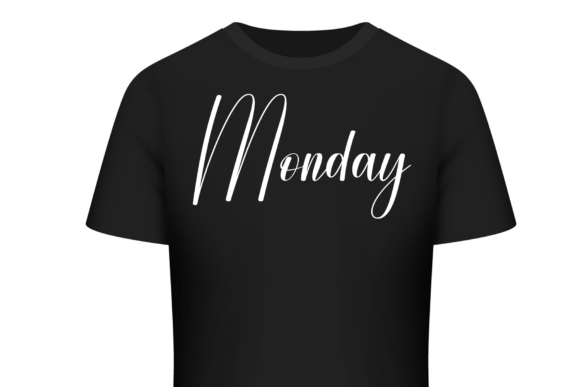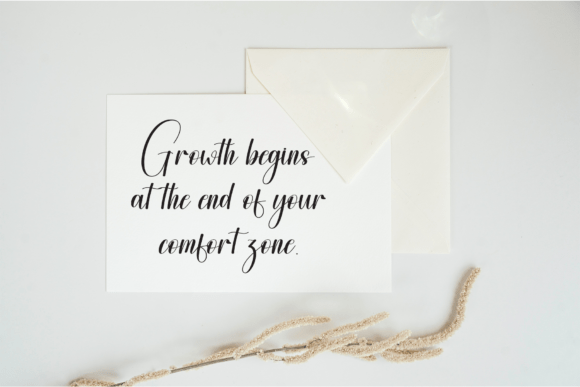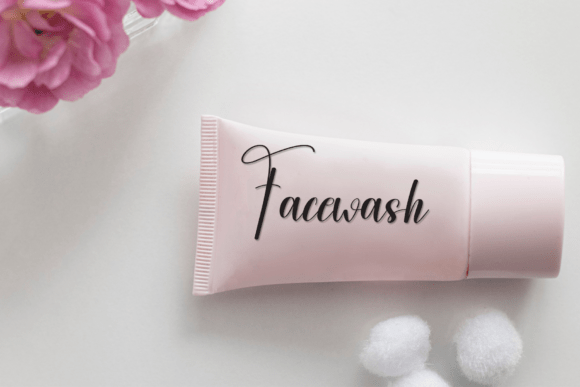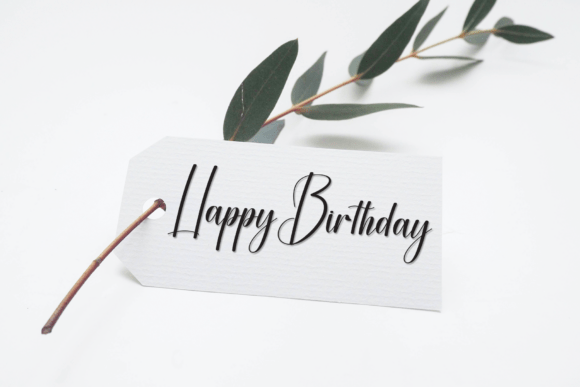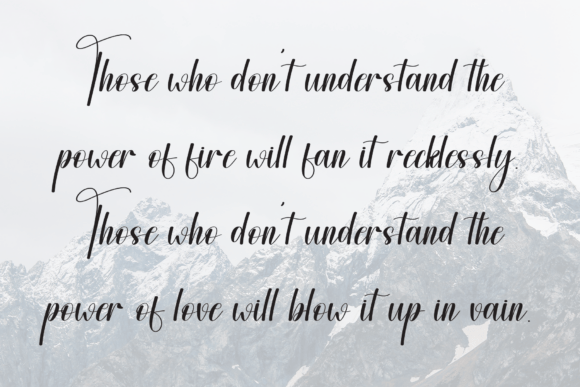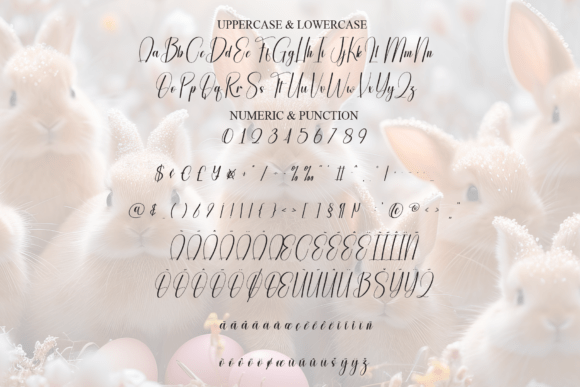
Introducing Bunny Font: The Sweetest Addition to Your Design Toolkit
Have you ever been in the middle of a design project, and suddenly, you just can’t seem to find the right font? I recall a particularly frustrating experience while working on a whimsical wedding invitation project. My client wanted something sweet, playful, and utterly charming. I scoured the internet, tried out countless fonts, but nothing seemed quite right. That was until I stumbled upon Bunny Font – a charmingly delightful handwritten display font that instantly captured the essence of what I was trying to create.
The First Impression: A Perfect Blend of Whimsy and Warmth
Bunny Font is more than just a typeface; it’s an experience. Exuding an aura of friendliness, this typography is perfect for crafting whimsical wedding invitations, sentimental cards, or infusing a dash of fun into any design that could use a playful touch. The moment I laid eyes on it, I knew I had found the perfect fit for my project. Its sweet and inviting design makes it an excellent choice for designers, crafters, and creative hobbyists looking to add a personal touch to their work.
- ✨ Unique and charming handwritten style that’s perfect for creative projects
- ✅ Extensive character set, including support for multiple languages
- 💕 Beautifully designed to evoke a sense of warmth and friendliness
- 🎉 Excellent for use in digital and print media, from social media graphics to wedding invitations
While Bunny Font is incredibly versatile, there are a few things to keep in mind. ⚠️ Some of the more intricate details can get a bit lost at smaller font sizes, so it’s best used for headlines or larger text. Additionally, while the font comes with a range of glyphs and stylistic alternates, it may not be the best choice for body text due to its highly decorative nature.
Exploring Alternatives: Similar Fonts for Different Moods
If you’re looking for something similar to Bunny Font or want to explore other options, here are a few alternatives:
- Lobster – A elegant, yet approachable script font perfect for formal events or sophisticated designs.
- Pacifico – Offers a more relaxed, beachy vibe, ideal for projects that require a laid-back feel.
- Great Vibes – A fun, adventurous script that’s great for designs that need a bit of energy and playfulness.
- Alex Brush – A beautiful, handwritten font with a more artistic and expressive feel, suitable for creative and inspirational projects.
The Story Behind Bunny Font: A Glimpse into Its Creation
While the actual origins of Bunny Font are shrouded in mystery, it’s easy to imagine that its creation was inspired by a love of whimsical designs and a desire to bring a bit of joy into the world of typography. Perhaps its designer, fueled by a passion for handwriting and a keen eye for detail, set out to craft a font that would make people smile. Whatever the backstory, Bunny Font’s charm and appeal are undeniable.
Q: What makes Bunny Font suitable for wedding invitations?
A: Bunny Font’s sweet and inviting design makes it perfect for wedding invitations, adding a touch of whimsy and romance to your special day.
Q: Does Bunny Font support OpenType features?
A: Yes, Bunny Font comes with a range of OpenType features, including glyphs and stylistic alternates, allowing for a high degree of customization.
Q: Is Bunny Font difficult to read at smaller sizes?
A: Due to its decorative nature, Bunny Font is best used at larger sizes for optimal readability. It’s perfect for headlines and titles but may not be suitable for body text.